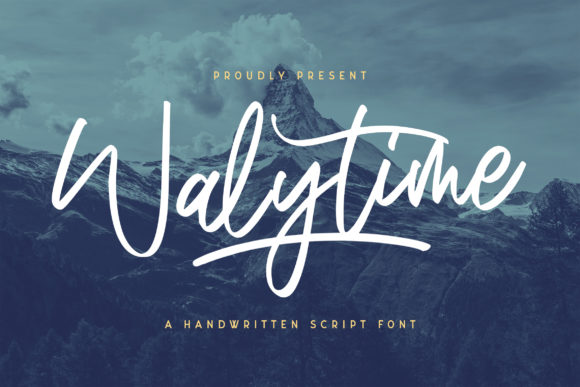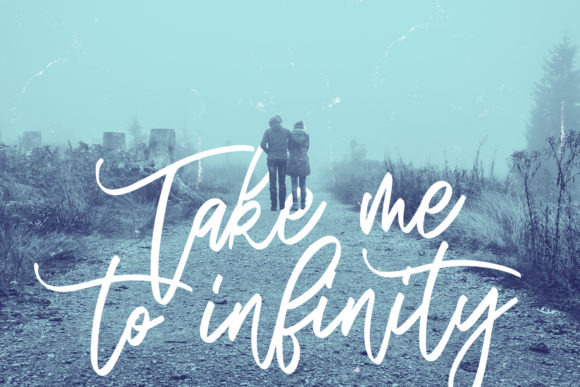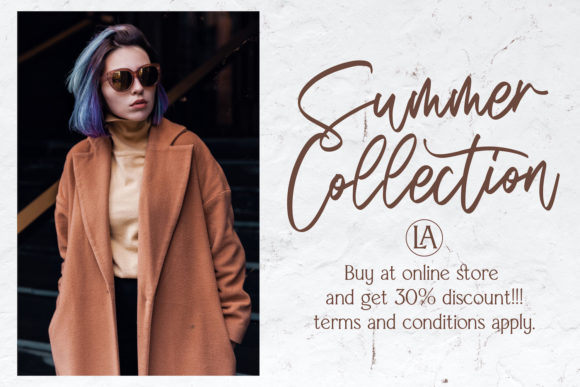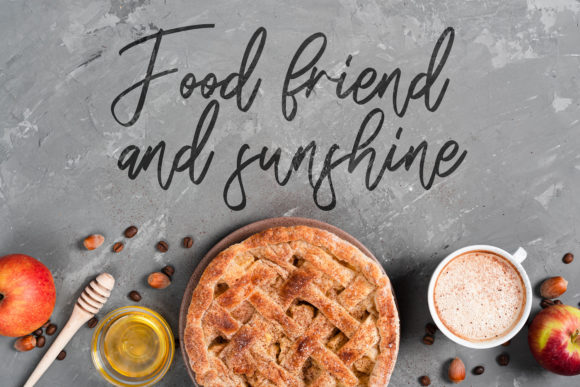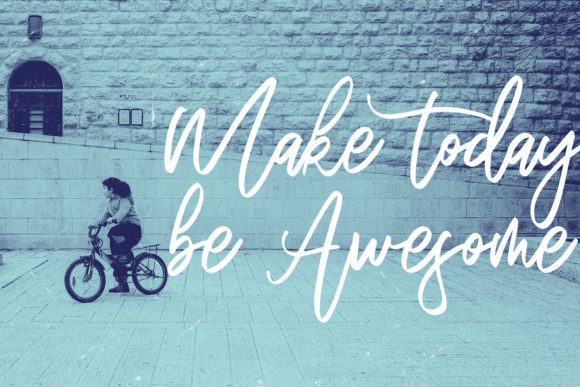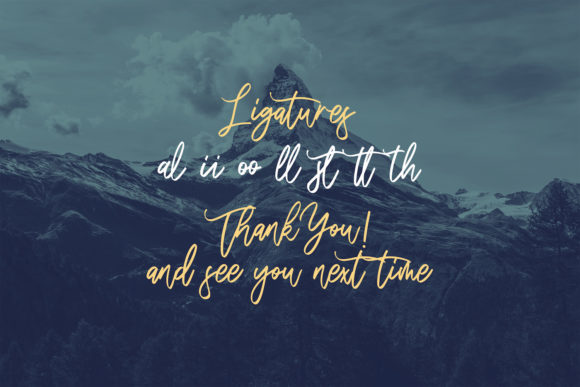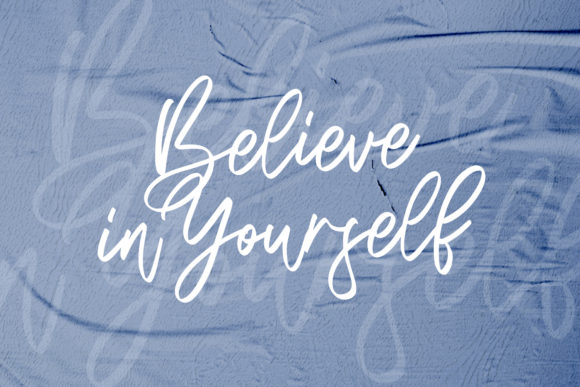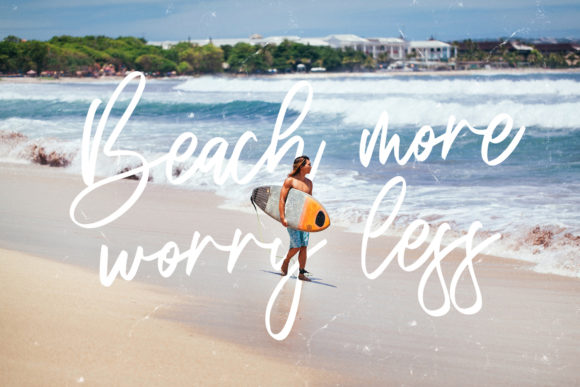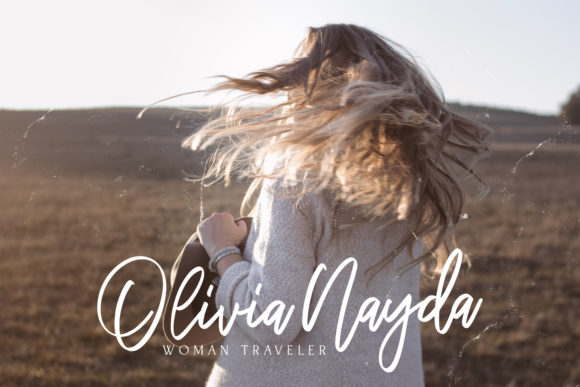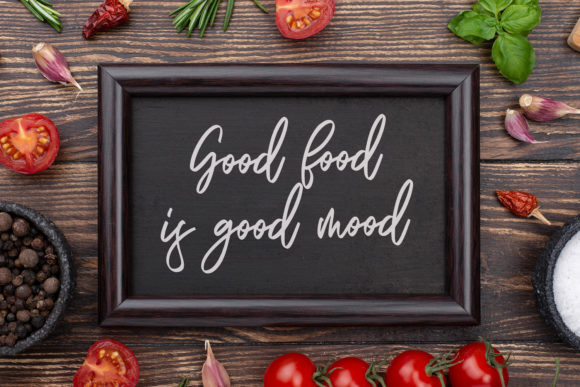
Walytime Font
About Walytime Font
Walytime sounds like a charming and versatile handwritten font that perfectly combines a relaxed and timeless style. Its adaptability makes it an ideal choice for a wide range of creative projects, enabling you to add a touch of elegance and warmth to your designs. Let’s explore some of the ways you can utilize Walytime to create stunning and impactful designs:
1. Wedding Invitations: Design elegant and romantic wedding invitations that capture the essence of the special day, setting the tone for a beautiful celebration.
2. Stationery Art: Create stunning stationery art, such as notecards, letterheads, and envelopes, that exudes a sense of sophistication and style.
3. Social Media Posts: Use Walytime to craft eye-catching social media graphics that resonate with your audience, enhancing the visual appeal of your posts.
4. Quotes and Typography: Apply the font to create captivating typographic quotes, inspiring your audience with heartfelt messages and motivational phrases.
5. Blog and Website Headers: Customize your blog or website headers with Walytime to add a personal and inviting touch to your online presence.
6. Greeting Cards: Craft heartfelt greeting cards for various occasions, conveying warmth and sincerity with a relaxed and timeless handwritten font.
7. Art Prints: Design art prints featuring Walytime calligraphy to add a touch of elegance to your home decor or art collections.
8. Branding and Logos: Use the font for branding projects, giving your business or brand a warm and approachable identity.
9. Product Packaging: Apply Walytime to product packaging, adding a personal and artistic touch that stands out on the shelves.
10. Posters and Flyers: Create eye-catching posters and flyers for events, promotions, or announcements, capturing attention with Walytime’s versatile style.
11. Personal Journals: Use the font for personal journaling, capturing your thoughts and reflections with a relaxed and inviting appeal.
12. Menus and Restaurant Branding: Apply Walytime to design menus and restaurant branding materials, infusing your establishment with a touch of warmth.
13. Home and Lifestyle Products: Utilize the font for labels and packaging of home and lifestyle products, creating a cohesive and charming visual identity.
14. Magazine Layouts: Enhance the visual appeal of magazine layouts with Walytime, bringing a unique and timeless flair to your editorial designs.
15. Beauty and Fashion Branding: Use the font for beauty and fashion branding, evoking a sense of elegance and authenticity.
16. Special Event Invitations: Create special event invitations, such as birthdays or anniversaries, with a relaxed and timeless touch.
17. Inspirational Posters: Design inspirational posters with Walytime calligraphy, spreading positivity and encouragement.
18. Craft and DIY Projects: Incorporate Walytime into various craft and DIY projects, adding a personal and artistic element to your creations.
19. Book Covers: Apply the font to book covers, infusing your literary works with a warm and inviting visual identity.
20. Personalized Gifts: Use Walytime to create personalized gifts, such as custom prints or mugs, that hold sentimental value.
In conclusion, Walytime is a relaxed and timeless handwritten font that offers incredible versatility and charm. Whether you’re designing wedding invitations, social media graphics, stationery, or other creative projects, Walytime will add a touch of elegance and warmth to your designs. Fall in love with Walytime’s inviting style and use it to bring a personal and artistic element to each of your creations. Embrace the versatility of Walytime in your design endeavors, and notice how it elevates your projects, creating a lasting impact on your audience and making them stand out with their timeless appeal.